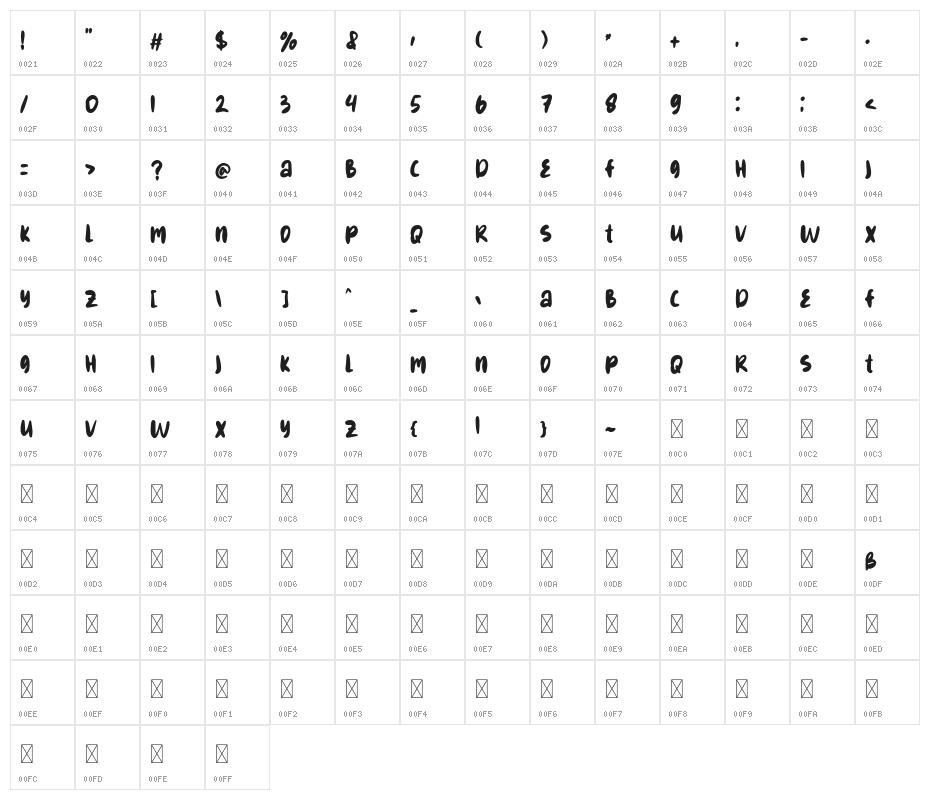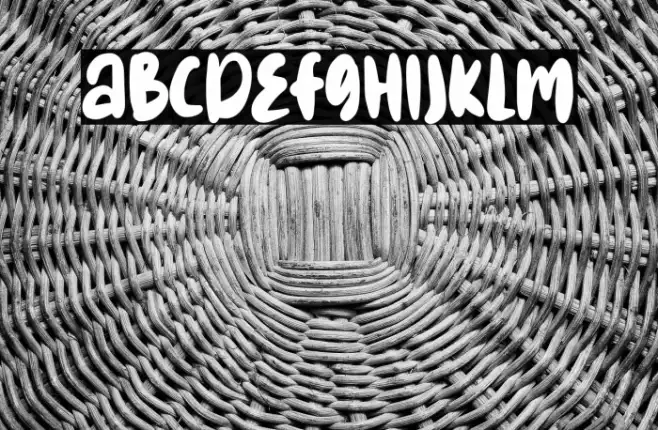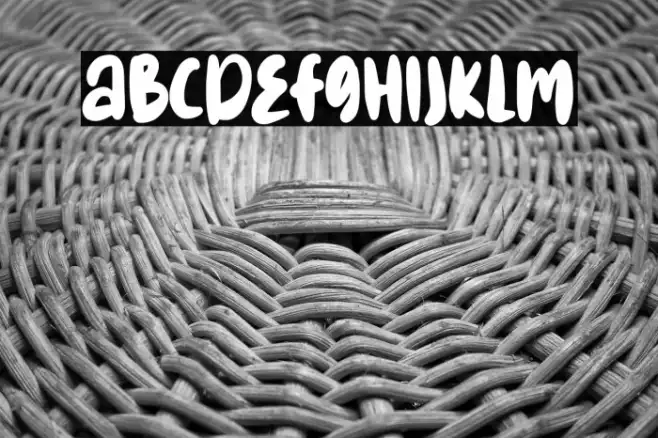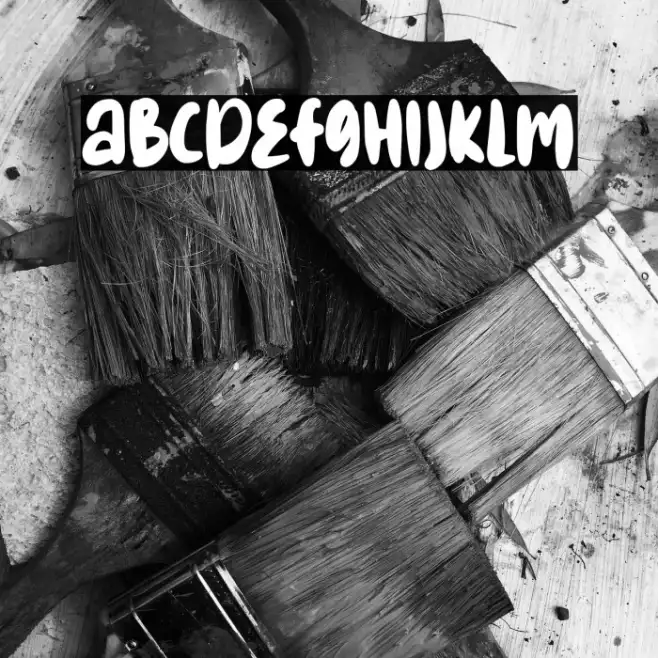
Dreary Broken Font
Dreary Broken Description
This font features a bold, playful style with rounded edges and a slightly irregular baseline, giving it a hand-drawn, casual appearance. The characters are thick and substantial, providing a strong visual impact. The uppercase and lowercase letters maintain a consistent style, with a slight slant that adds to the dynamic feel. Numbers and special characters are designed to match the overall aesthetic, making them easily readable while retaining the font's unique charm. The font's boldness and rounded forms make it ideal for projects that require a friendly and approachable look.